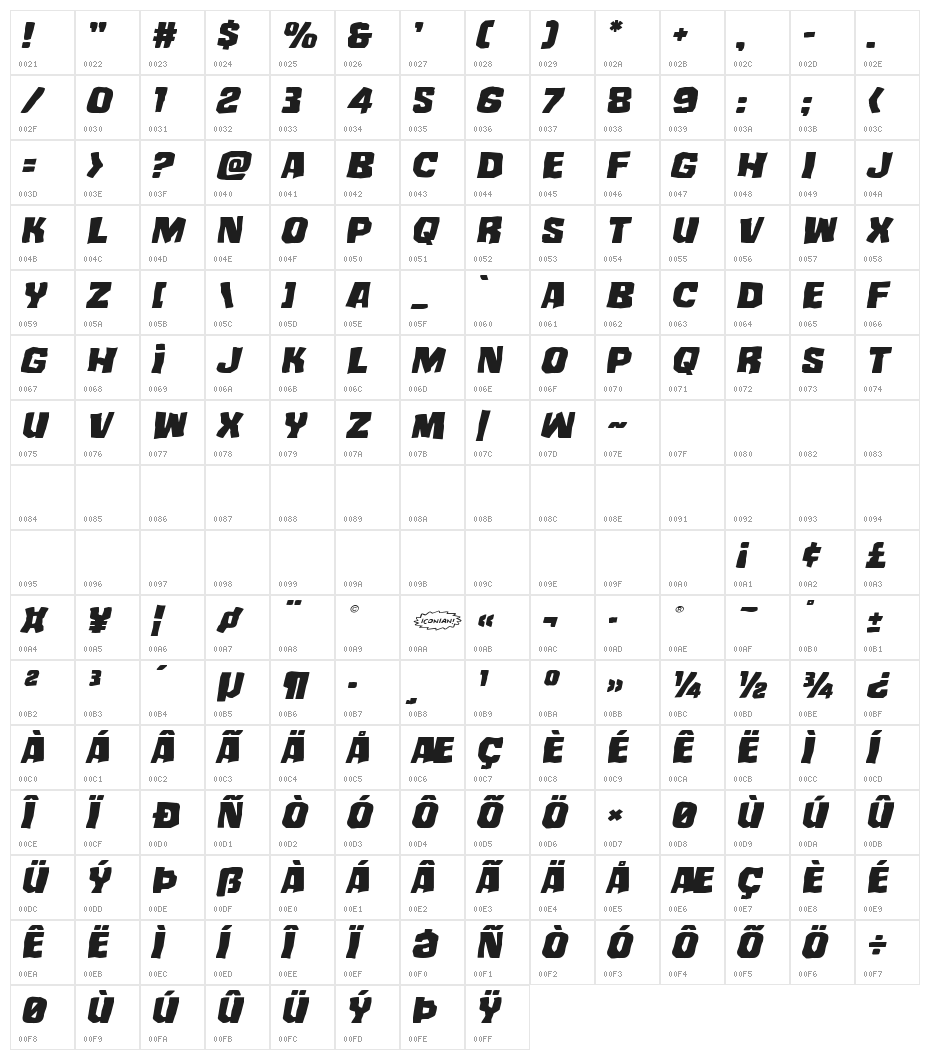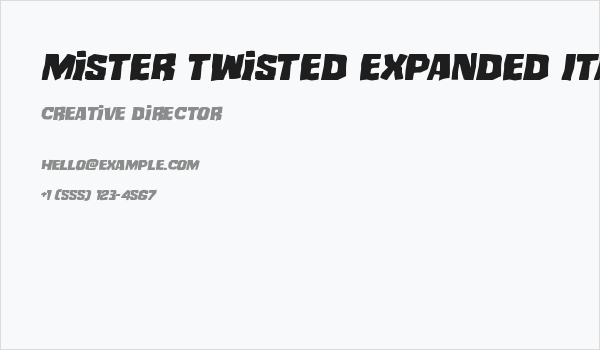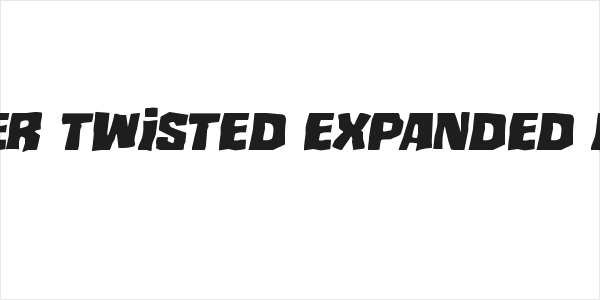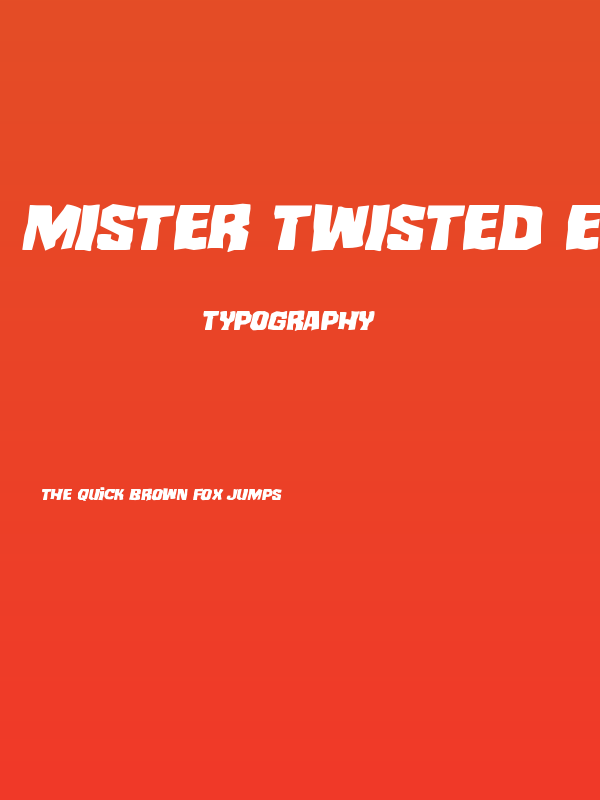
Mister Twisted Expanded Italic Font
Mister Twisted Expanded Italic Description
This font features a bold and dynamic style with a twisted, angular design that gives it a unique and energetic appearance. The characters are expanded and italicized, creating a sense of movement and flair. The uppercase and lowercase letters maintain a consistent style, with sharp edges and a slightly distorted look that adds to its distinctive character. The numbers and special characters follow the same design principles, ensuring a cohesive appearance across all glyphs. This font is ideal for projects that require a bold statement and a touch of creativity.
| Proposed Projects | Perfect for posters, logos, video game graphics, and any project needing a bold, creative touch. |